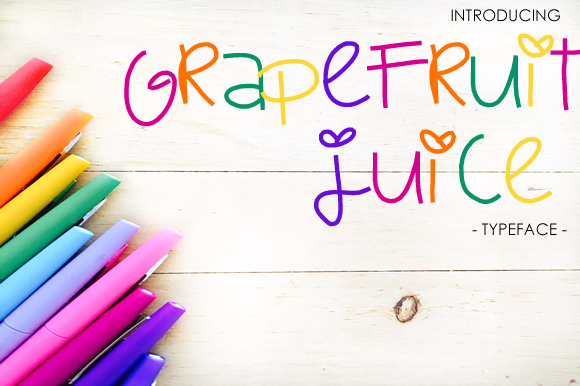
Grapefruit Juice Font: A Feminine Touch for Creative Projects
When it comes to adding a touch of elegance and charm to your designs, the Grapefruit Juice font stands out as a versatile and appealing choice. This girly, simple font brings a sense of romance and femininity that can elevate any project, whether it's for personal use or professional work. Its cute, feminine embellishments make it ideal for those looking to add a youthful and unstuffy vibe to their creations.
What Is Grapefruit Juice?
Grapefruit Juice is a font designed with a focus on simplicity and charm. It features soft curves and delicate details that give it a unique, approachable feel. Unlike more formal or structured fonts, Grapefruit Juice offers a playful aesthetic that can be used in a variety of contexts. Its design makes it particularly well-suited for projects that aim to convey warmth, creativity, or a sense of fun.
This font is often used in branding, social media content, invitations, and other visual materials where a friendly and inviting tone is desired. Its readability is also a key advantage, making it suitable for both digital and print formats.
Why Different Audiences Care About Grapefruit Juice
The appeal of Grapefruit Juice varies depending on the user's needs and goals. For example, a small business owner might choose this font to create a brand identity that feels welcoming and approachable. A blogger or educator could use it to make their content more visually engaging and relatable. Meanwhile, a hobbyist or designer might appreciate its creative potential for personal projects or artistic expressions.
Each audience may have different priorities when it comes to choosing a font. Beginners might prioritize ease of use and accessibility, while professionals might look for versatility and quality. Creators and entrepreneurs may value the font’s ability to enhance their brand’s image, while educators might consider how it affects the clarity and engagement of their materials.
How Beginners Might Use Grapefruit Juice
For those new to design, Grapefruit Juice offers a straightforward way to add personality to their work. It requires minimal technical knowledge to apply, making it an excellent option for people who are just starting out. Beginners can use it for creating greeting cards, social media posts, or even simple logos without needing advanced design skills.
Its simplicity also means that it doesn’t require complex formatting or adjustments. This makes it a great choice for users who want to focus on the message rather than the style. For example, a student working on a school project might use Grapefruit Juice to make their presentation more visually appealing without spending too much time on formatting.
How Professionals Might Evaluate Grapefruit Juice
Experienced designers and professionals may assess Grapefruit Juice based on its flexibility and compatibility with other design elements. They might consider how well it works with different color schemes, layouts, and mediums. For instance, a graphic designer working on a marketing campaign might test the font in various contexts to ensure it maintains its charm and readability across different platforms.
How Educators and Business Owners Might Use Grapefruit Juice
Educators might find Grapefruit Juice useful for creating engaging learning materials. Its friendly appearance can help make lessons more accessible and enjoyable for students. For example, a teacher designing a worksheet or a presentation might use the font to make the content feel less intimidating and more inviting.
Business owners, especially those in the fashion, beauty, or lifestyle industries, might use Grapefruit Juice to create a brand aesthetic that resonates with their target audience. A boutique owner, for instance, could use the font on packaging or promotional materials to reinforce a feminine and elegant brand image. This can help build a stronger connection with customers who appreciate a more personal and stylish approach.
How Hobbyists and Consumers Might Appreciate Grapefruit Juice
Hobbyists and consumers who enjoy DIY projects or personal creative endeavors may find Grapefruit Juice appealing for its aesthetic qualities. Whether they're making handmade cards, custom T-shirts, or home decor, the font can add a unique and personal touch to their creations. Its simplicity also makes it easy to work with, even for those without formal design training.
Consumers who are looking for fonts to use in their own projects might consider Grapefruit Juice for its affordability and availability. Many fonts are available through online marketplaces, and some may even offer free versions for personal use. This makes it an attractive option for people who want to experiment with different styles without a significant investment.
Ultimately, the best way to decide is to experiment with the font in different scenarios. Try using it in a sample design or text layout to see how it looks and feels. This hands-on approach can help you determine whether it aligns with your creative vision and practical needs.